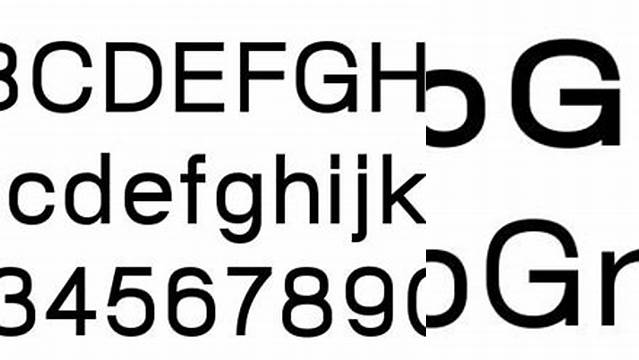
1. What is Neogram Bold?
Neogram Bold is a modern sans-serif typeface known for its clean lines, strong presence, and excellent readability. It's a versatile font that works well in a variety of design applications, from headlines and logos to body text and user interfaces. The bold weight adds extra emphasis, making it ideal for projects where you need to grab attention. Its geometric structure gives it a contemporary feel, ensuring your designs look fresh and up-to-date. When you're trying to find a solid, reliable font, Neogram Bold is definitely one to consider.
Using Neogram Bold can elevate your projects, giving them a professional and polished look. Whether you're designing a website, creating marketing materials, or working on a branding project, this font can help you achieve your desired aesthetic. Plus, its availability as a free download makes it accessible to designers of all levels. So, if you’re looking to enhance your typography game, keep reading to find out how to get your hands on this fantastic font.
2. Key Features of Neogram Bold
So, what makes Neogram Bold stand out from the crowd? Well, a few key features make it a designer's favorite. First off, its clean and modern design ensures it looks good in both digital and print formats. The bold weight adds a level of impact that many other fonts lack, making it perfect for headlines and titles. Its excellent readability means your message will always be clear, no matter the size or context. Another great feature is its versatility. Neogram Bold works well in a wide range of design projects, from branding to web design. Finally, the fact that it's available as a free download makes it an incredibly accessible option for everyone. These features combine to make Neogram Bold a font that's both stylish and practical, a rare combination in the world of typography. Its distinct characteristics really set it apart, making it a go-to choice for designers looking to make a statement.
4. Using Neogram Bold in Graphic Design
When it comes to graphic design, Neogram Bold is a true workhorse. Its bold and modern aesthetic makes it perfect for a wide range of applications. Use it in headlines to grab attention, in logos to create a strong brand identity, or in posters to make a statement. Its clean lines and excellent readability also make it suitable for body text, ensuring your message is always clear. Whether you're designing for print or digital media, Neogram Bold can help you achieve a professional and polished look. Experiment with different sizes, weights, and colors to see how this font can transform your designs. With its versatility and impact, Neogram Bold is a valuable asset to any graphic designer's toolkit. Its ability to adapt to various design styles makes it a reliable choice for consistent branding and visual communication.
5. Neogram Bold for Web Design
In the realm of web design, typography is king, and Neogram Bold is a font fit for royalty. Its bold presence makes it perfect for headings, ensuring your website visitors immediately understand the purpose of each section. Plus, its excellent readability means your body text will be easy on the eyes, no matter the screen size. Using Neogram Bold can also help you create a consistent and professional brand identity across your website. It pairs well with other fonts, giving you the flexibility to create unique and engaging designs. And the best part? You can get it as a free download, making it an affordable option for any web project. So, whether you're building a blog, an e-commerce site, or a portfolio, Neogram Bold can help you create a website that looks great and functions flawlessly. Its modern appeal keeps websites looking current and professional.
6. Pairing Neogram Bold with Other Fonts
One of the secrets to great typography is knowing how to pair fonts effectively. Neogram Bold, with its strong and modern aesthetic, works well with a variety of other typefaces. For a classic look, try pairing it with a serif font like Times New Roman or Georgia. This creates a nice contrast between the bold heading and the more traditional body text. If you're going for a more contemporary vibe, pair it with a lighter sans-serif font like Open Sans or Lato. This combination is clean, modern, and easy to read. Experiment with different pairings to find what works best for your project. Remember, the goal is to create a visually appealing and harmonious design that effectively communicates your message. When you nail the font pairing, your designs will go from good to great. A thoughtful combination can enhance readability and visual interest.
30. Neogram Bold: Future of Font Design
The future of font design is constantly evolving with new technologies and design trends shaping the landscape. Variable fonts, which allow for seamless adjustments to font weight, width, and other parameters, are becoming increasingly popular. Artificial intelligence (AI) is also playing a role in font design, with AI-powered tools automating certain aspects of the design process. As technology continues to advance, we can expect to see even more innovative and exciting developments in the world of font design. Staying informed about these trends can help you create designs that are both cutting-edge and visually stunning. The future of font design is full of possibilities, so embrace the change and explore new horizons.